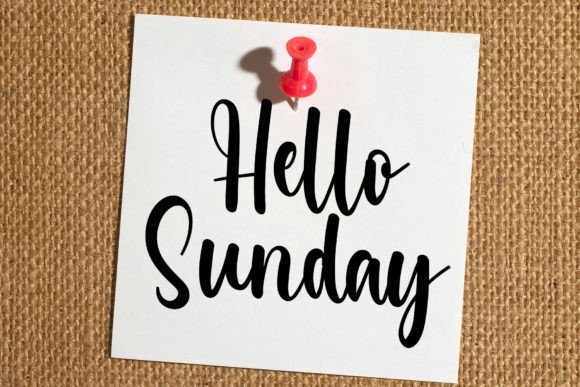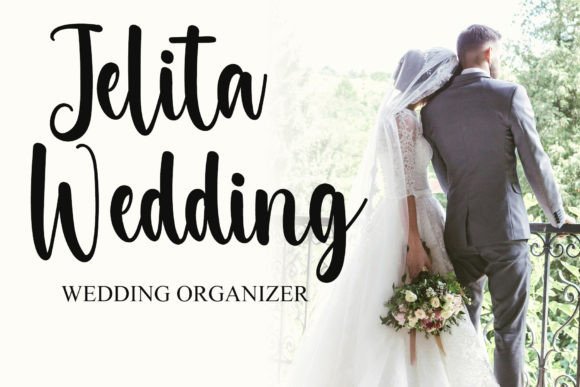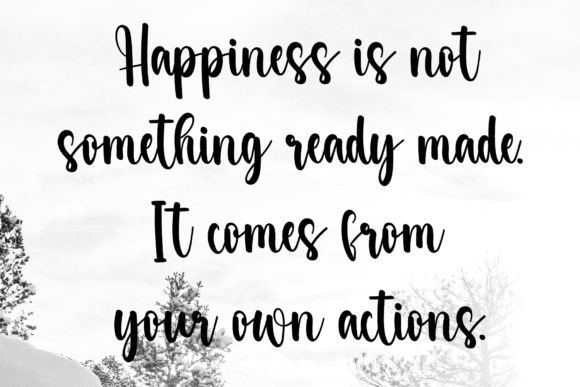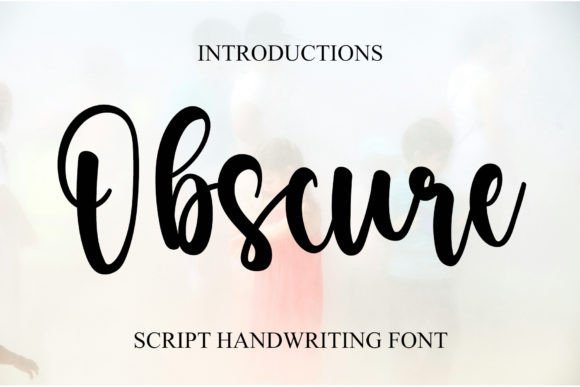
Introduction to Obscure Font
Obscure is a stylish handwritten script font that exudes elegance and charm with its flowing, graceful curves.
Perfect for invitations, logos, and branding, it adds a personal and sophisticated touch to any design The font’s delicate strokes bring warmth and creativity to your projects.
Key Features of Obscure Font
Why Choose Obscure Font?
Obscure Font offers exceptional quality and versatility, making it a valuable addition to your design toolkit. Whether you’re creating for personal projects or commercial use, Obscure Font delivers professional results.